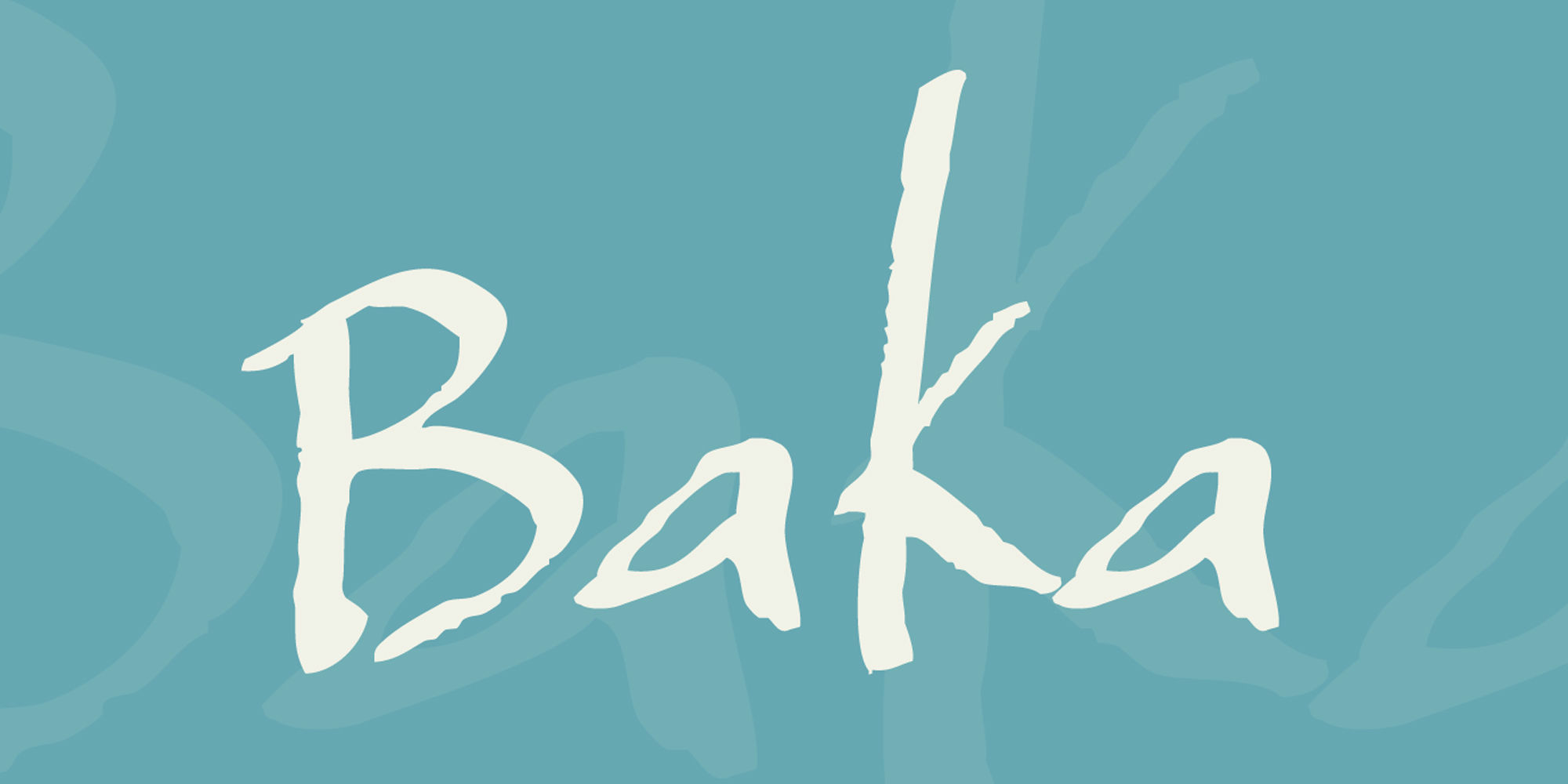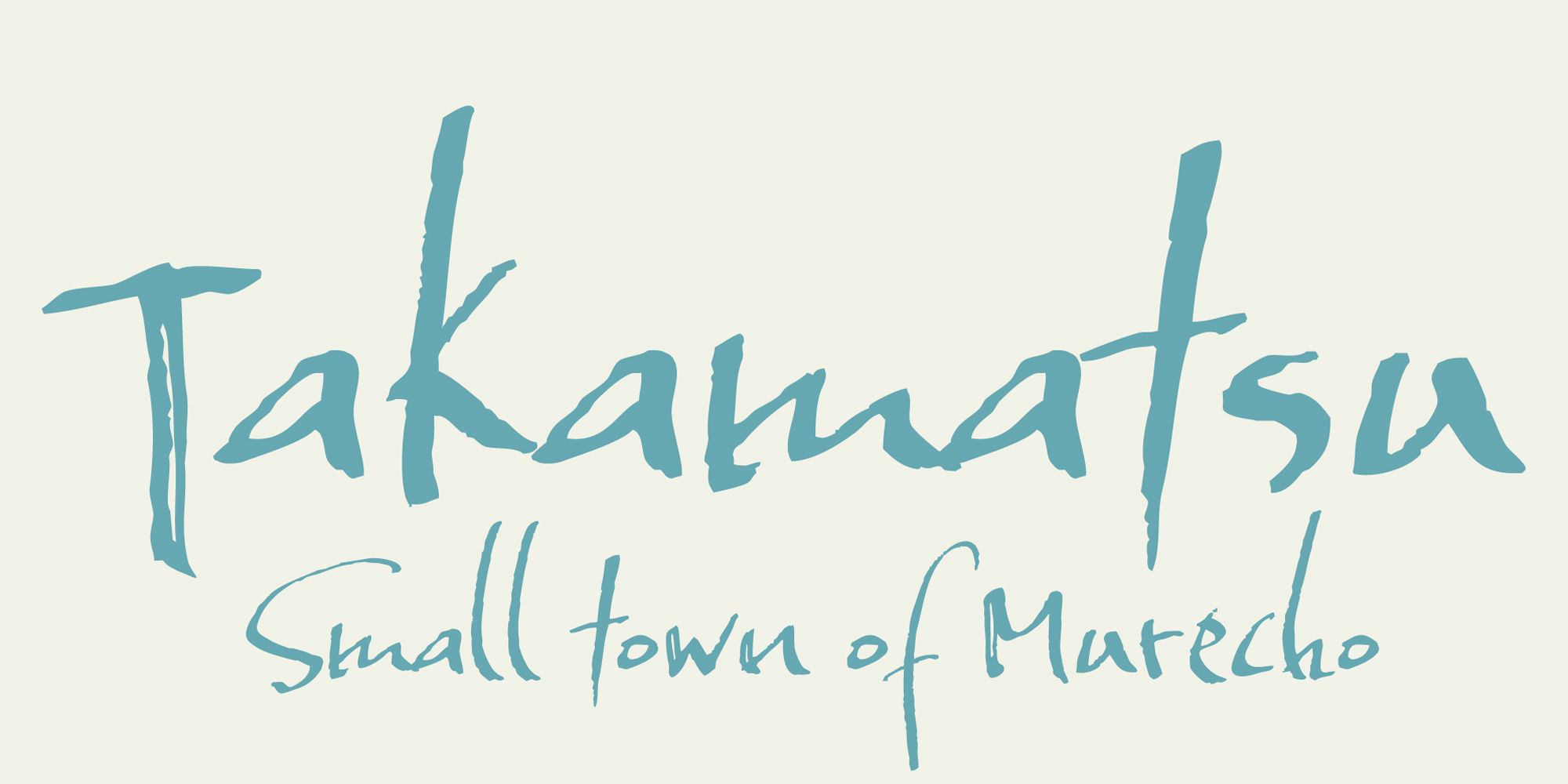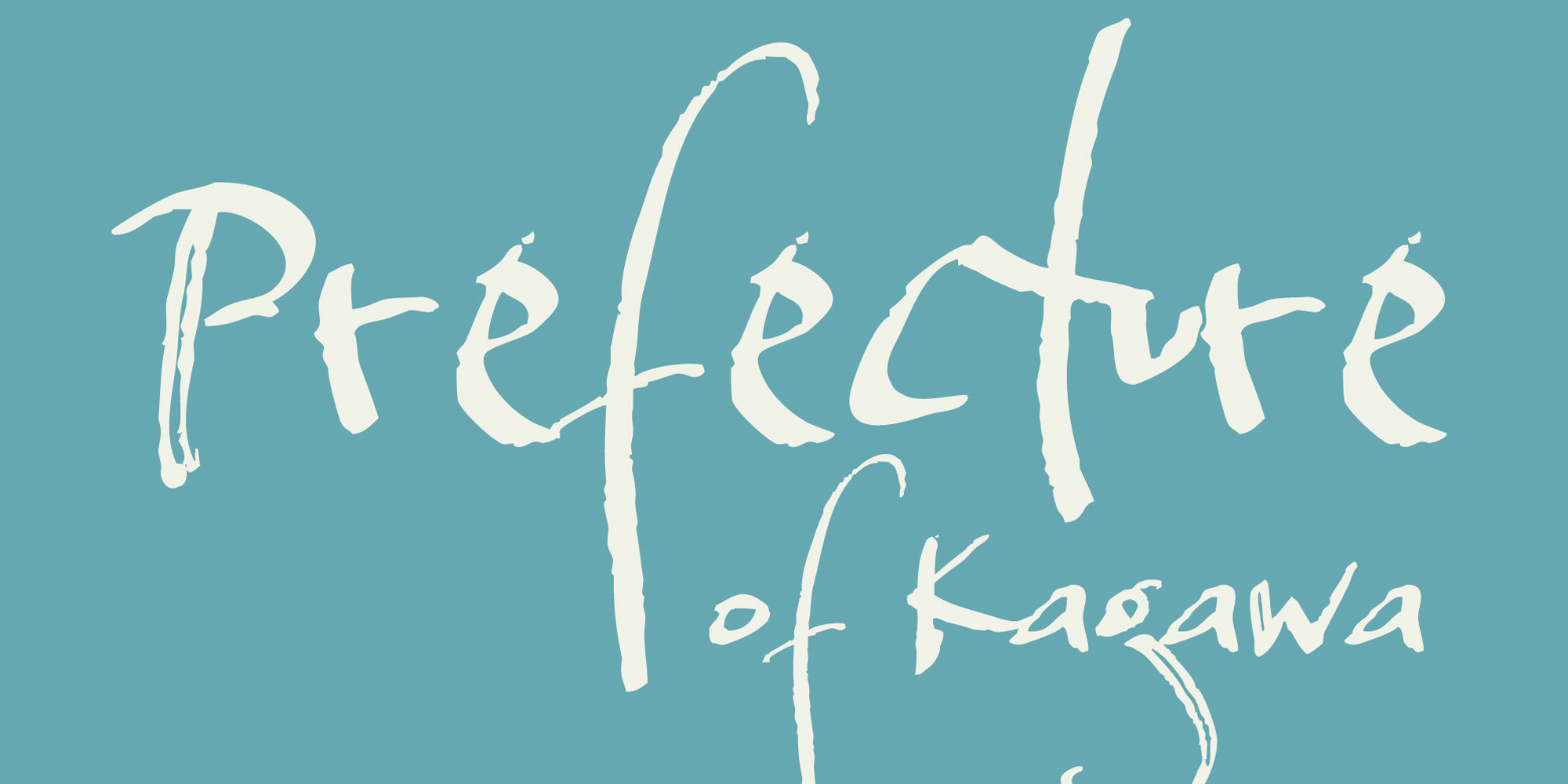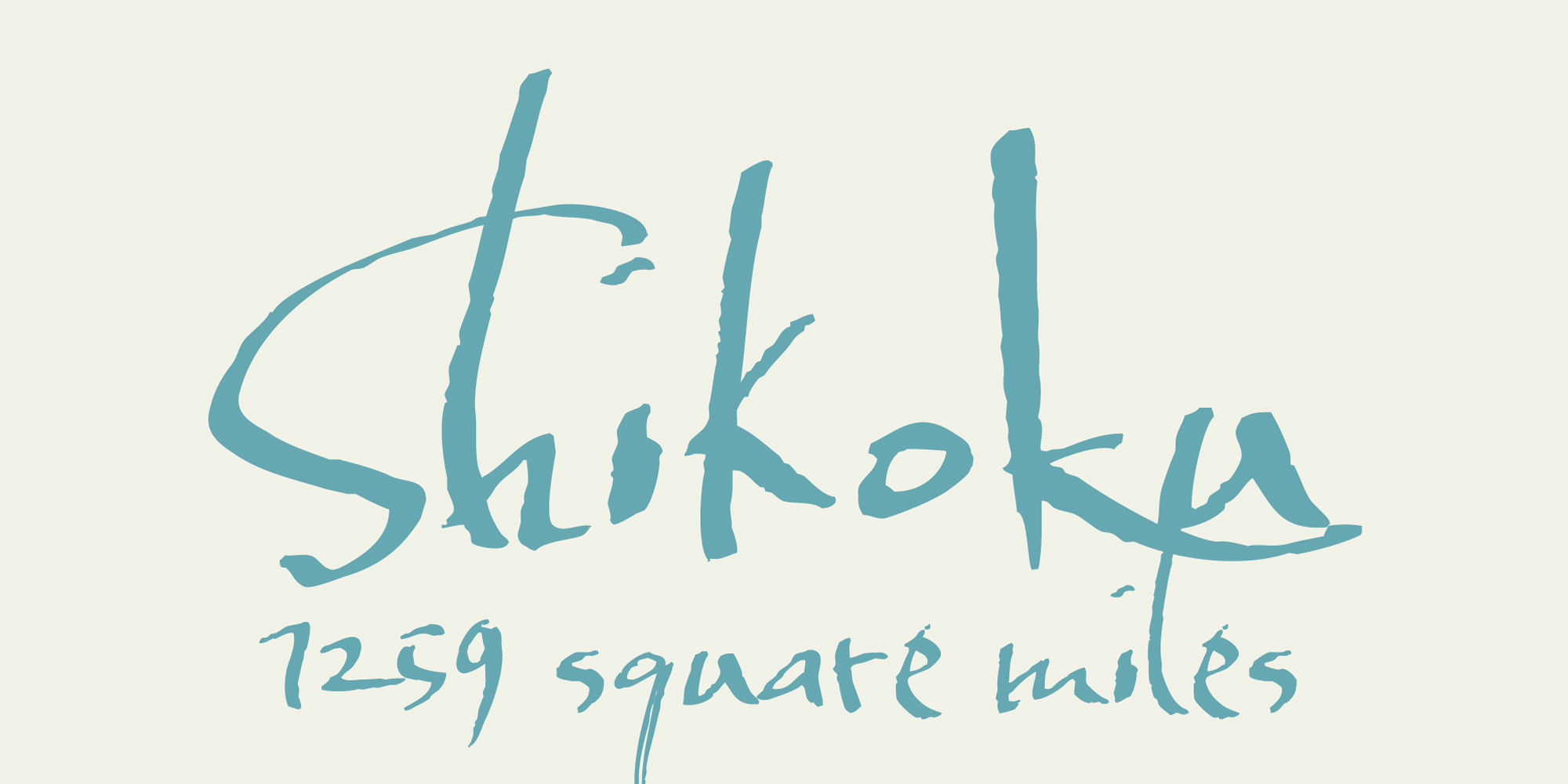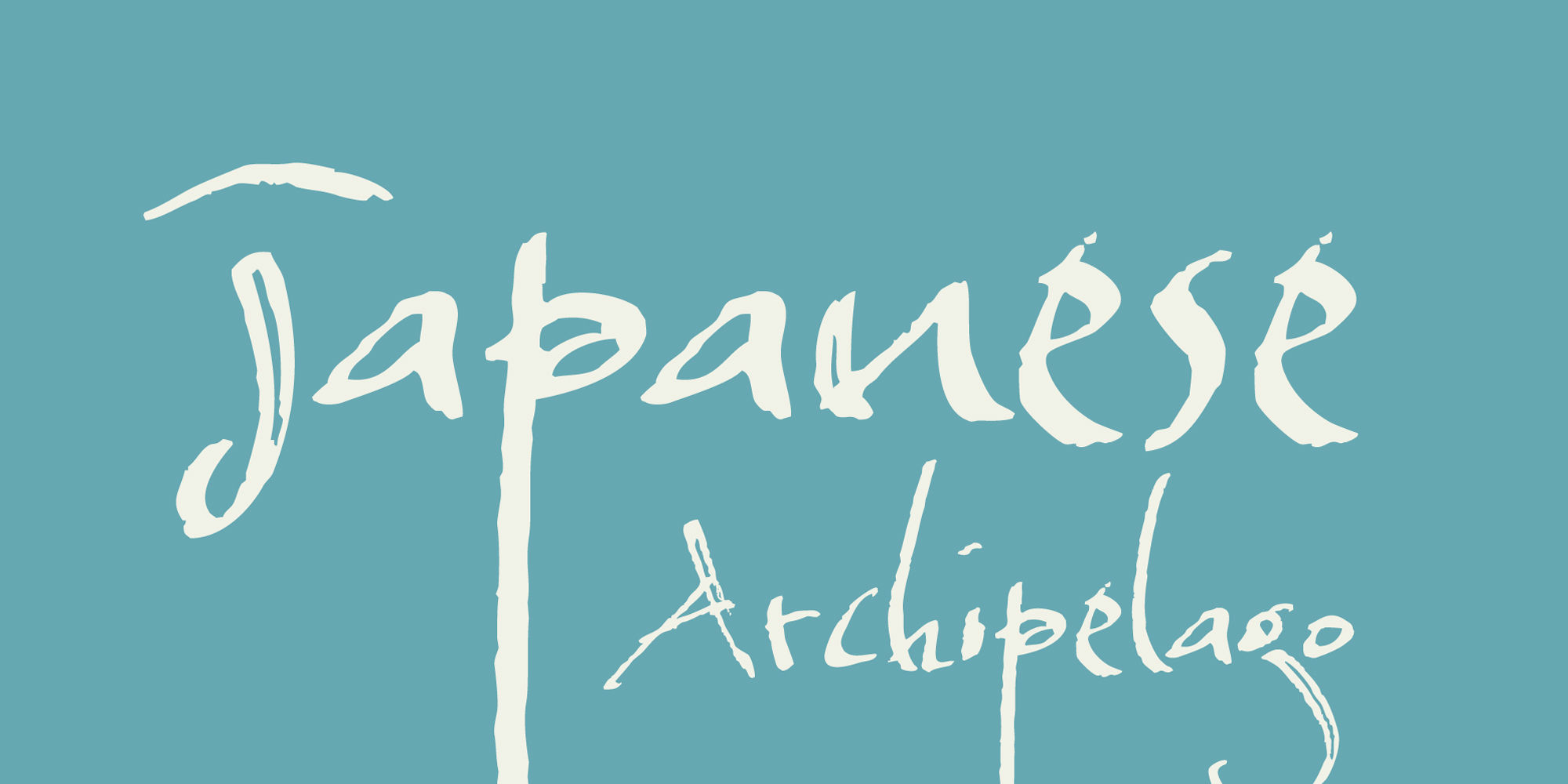
Baka
This simple typeface has a secret—behind that nonchalant attitude is a ton of Stylistic, Swash, and Titling Alternates. It even contains 44 special ligature combinations to insure you have the smoothest entrance possible.